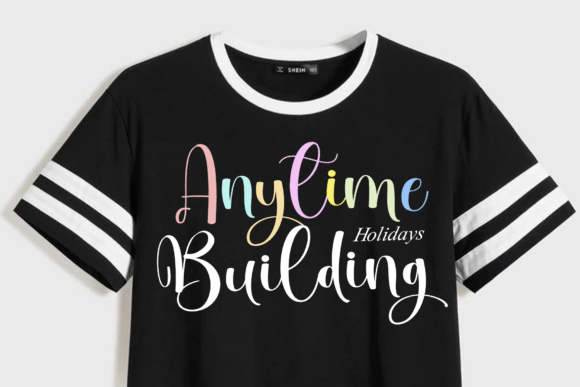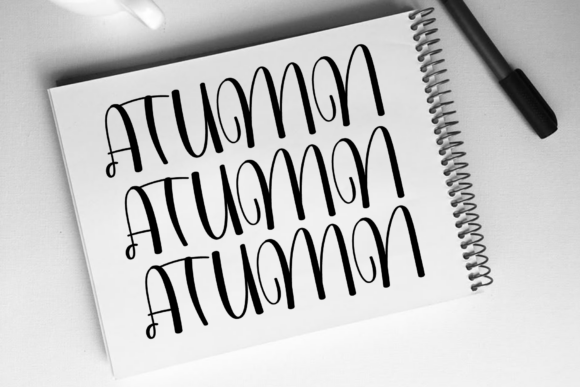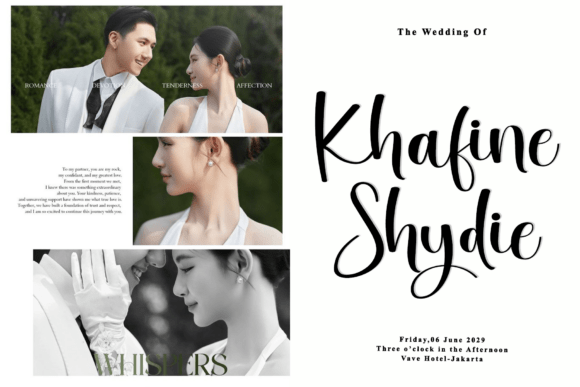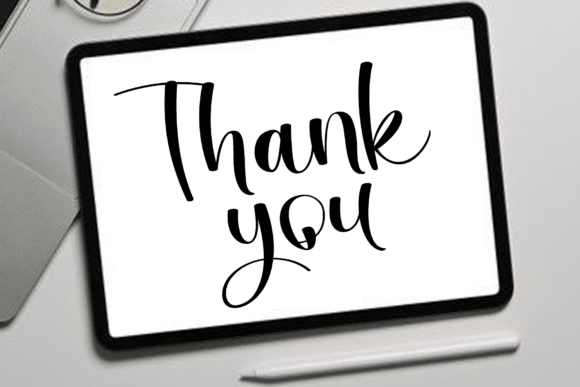
Introducing Citysky Font: The Timeless Handwritten Font for Stunning Designs
Are you a designer or crafter looking for a font that can elevate your creative projects? Look no further than Citysky Font, a lovely and timeless handwritten font that is sure to make your designs come alive. In this article, we’ll take a closer look at Citysky Font, its features, and how it can be used to create eye-catching logos, branding, and quotes.
What is Citysky Font?
Citysky Font is a beautiful handwritten font that is perfect for designers and crafters who want to add a personal touch to their projects. It’s a versatile font that can be used for a wide range of designs, from logos and branding to quotes and social media graphics. The font has a unique and beautiful touch, with every letter carefully crafted to create a stunning visual effect.
Features of Citysky Font
So, what makes Citysky Font so special? Here are some of its key features:
- Unique and Beautiful Touch: Every letter in Citysky Font has a unique and beautiful touch, which sets it apart from other fonts. The font is carefully crafted to create a stunning visual effect that will make your designs stand out.
- Timeless Design: Citysky Font has a timeless design that will never go out of style. Its classic look and feel make it perfect for designers and crafters who want to create designs that are both modern and elegant.
- Handwritten Style: Citysky Font is a handwritten font, which gives it a personal and authentic feel. It’s perfect for designers and crafters who want to add a touch of personality to their designs.
- Versatile: Citysky Font is a versatile font that can be used for a wide range of designs, from logos and branding to quotes and social media graphics.
Uses of Citysky Font
Citysky Font is a versatile font that can be used for a wide range of designs. Here are some of the ways you can use Citysky Font:
- Logos and Branding: Citysky Font is perfect for creating eye-catching logos and branding materials. Its unique and beautiful touch makes it stand out from other fonts, and its timeless design ensures that your logo will never go out of style.
- Quotes and Social Media Graphics: Citysky Font is also great for creating quotes and social media graphics. Its handwritten style gives it a personal and authentic feel, making it perfect for sharing inspirational quotes and messages on social media.
- Invitations and Stationery: Citysky Font can also be used to create beautiful invitations and stationery. Its elegant and classic look makes it perfect for formal and informal events.
Why Choose Citysky Font?
So, why should you choose Citysky Font for your design projects? Here are some reasons:
- Unique and Eye-Catching: Citysky Font is a unique and eye-catching font that will make your designs stand out from the crowd.
- Timeless Design: Citysky Font has a timeless design that will never go out of style, ensuring that your designs remain relevant for years to come.
- Easy to Read: Citysky Font is easy to read, making it perfect for designs that require a clear and concise message.
- Versatile: Citysky Font is a versatile font that can be used for a wide range of designs, making it a great addition to your font library.
In conclusion, Citysky Font is a lovely and timeless handwritten font that is perfect for designers and crafters who want to create stunning designs. Its unique and beautiful touch, timeless design, and versatility make it a great choice for a wide range of design projects. Whether you’re creating logos and branding materials, quotes and social media graphics, or invitations and stationery, Citysky Font is sure to make your designs come alive!